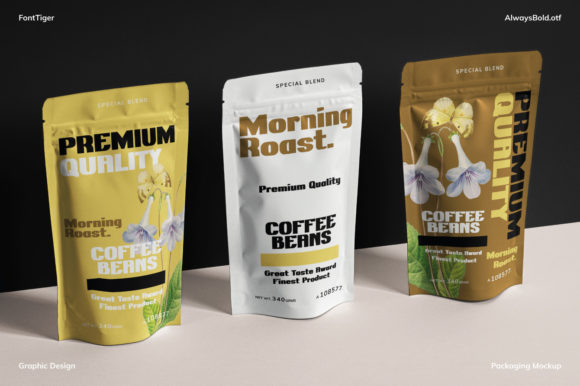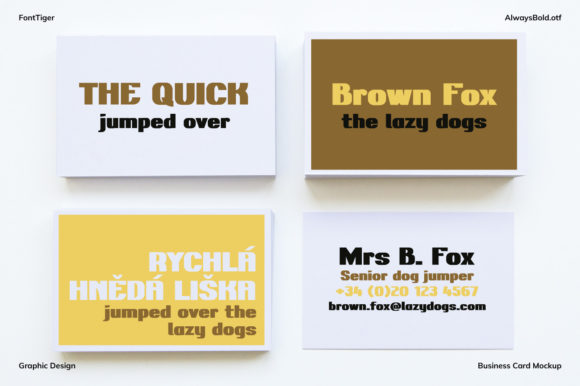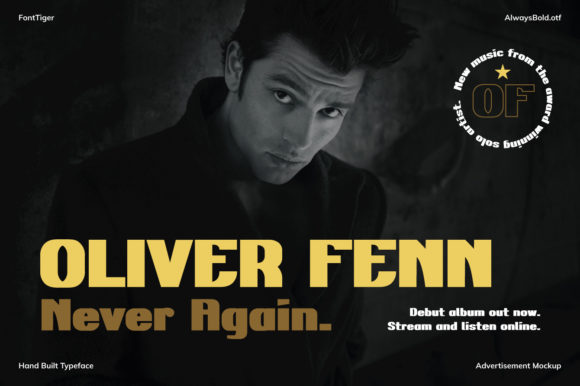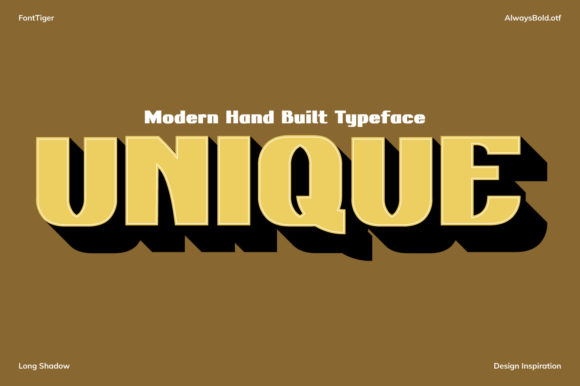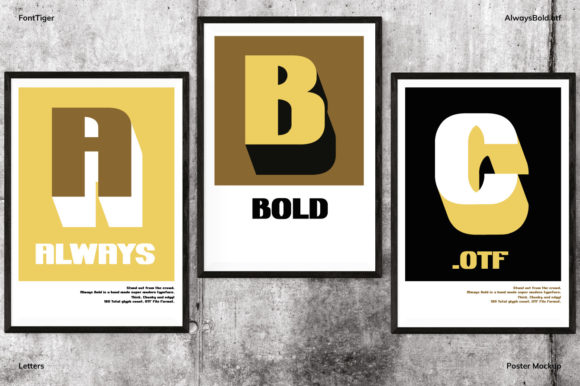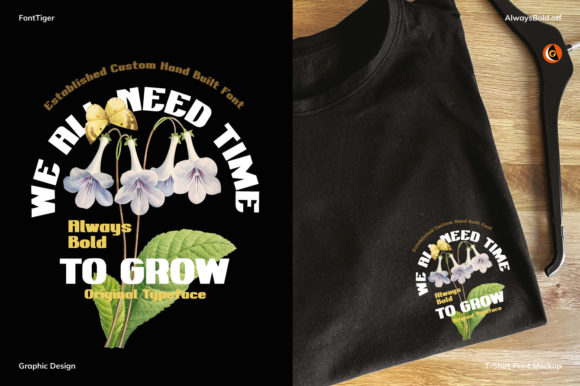
Introducing Always Bold Font: The Ultimate Display Font for Bold Statements
Are you tired of using the same old fonts for your designs? Do you want to make a statement and grab the attention of your audience? Look no further than Always Bold Font, a cool, thick lettered, and assertive display font that’s perfect for a wide range of projects.
What is Always Bold Font?
Always Bold Font is a stylish and modern display font that’s designed to make a bold statement. Its thick letters and assertive style make it perfect for designs that require a strong and confident look. Whether you’re a designer, crafty DIY enthusiast, or simply someone who loves to create, Always Bold Font is the perfect addition to your font collection.
Uses for Always Bold Font
One of the best things about Always Bold Font is its versatility. You can use it for a wide range of projects, including:
- Blog Posts: Add a bold and eye-catching title to your blog post with Always Bold Font. It’s perfect for creating attention-grabbing headlines that draw readers in.
- Logos and Branding: Create a strong and memorable brand identity with Always Bold Font. Its bold and assertive style makes it perfect for logos, business cards, and other branding materials.
- Ads: Make your ads stand out from the crowd with Always Bold Font. Its thick letters and bold style make it perfect for creating eye-catching ads that grab attention.
- Invitations and Greeting Cards: Add a touch of elegance and sophistication to your invitations and greeting cards with Always Bold Font. Its bold style makes it perfect for creating special and memorable occasions.
- Planners and Photo Albums: Create a unique and personalized planner or photo album with Always Bold Font. Its bold style makes it perfect for creating titles, headings, and other design elements.
- Decorations: Use Always Bold Font to create decorative elements for your home or office. Its bold style makes it perfect for creating wall art, signs, and other decorative items.
Why Choose Always Bold Font?
So why choose Always Bold Font over other display fonts? Here are just a few reasons:
- Unique Style: Always Bold Font has a unique and stylish design that’s sure to make your designs stand out.
- Versatility: As mentioned earlier, Always Bold Font is versatile and can be used for a wide range of projects.
- Easy to Read: Despite its bold style, Always Bold Font is easy to read and understand, making it perfect for designs that require a clear and concise message.
- High-Quality: Always Bold Font is a high-quality font that’s designed to look great on any device or platform.
Tips for Using Always Bold Font
Here are a few tips for using Always Bold Font in your designs:
- Use it Sparingly: While Always Bold Font is perfect for making a bold statement, it’s best to use it sparingly. Use it for titles, headings, and other design elements, but not for large blocks of text.
- Pair it with Other Fonts: Always Bold Font looks great when paired with other fonts. Try pairing it with a sans-serif font for a modern and stylish look.
- Experiment with Colors: Always Bold Font looks great in a variety of colors. Experiment with different colors to find the one that works best for your design.
Always Bold Font is a cool, thick lettered, and assertive display font that’s perfect for making a bold statement. Its versatility, unique style, and high-quality design make it perfect for a wide range of projects, from blog posts and logos to ads and decorations. With these tips and ideas, you’ll be well on your way to creating amazing designs with Always Bold Font.